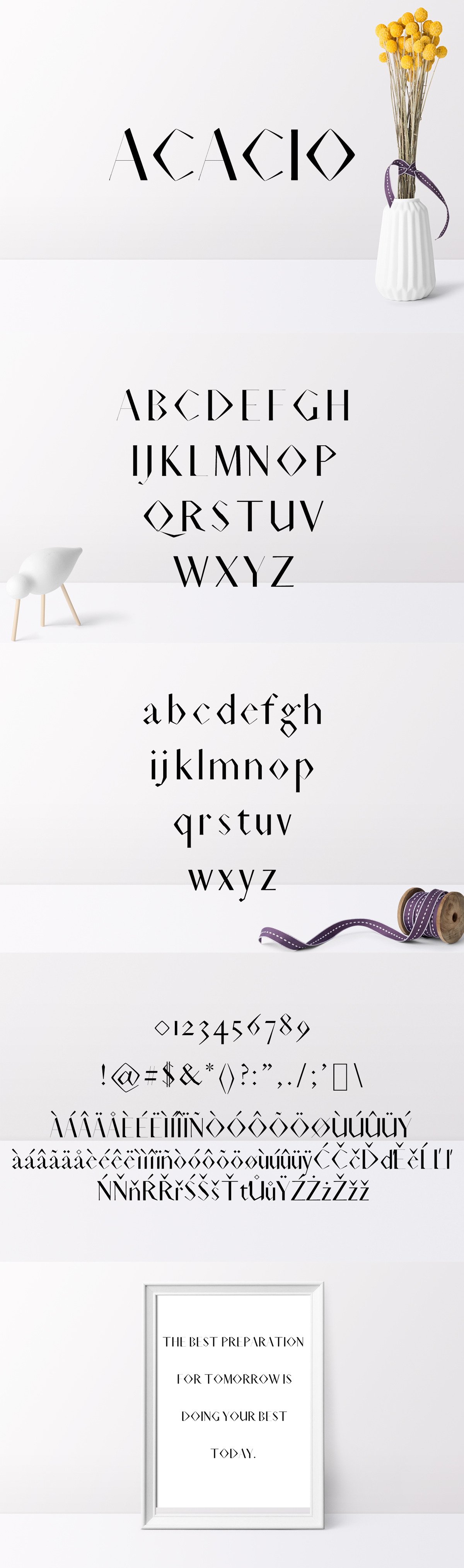
Acacio Serif 2 Font Family Pack
Acacio Serif 2 Font Family Pack features unique and modern serif look and feel. Perfect for gorgeous logos, titles, web layouts and branding. It looks gorgeous in all caps with a wide-set spacing if you want to try a classy look, or beautiful on its own in capital and lowercase letters for something completely timeless.
Acacio Font Features:
- Uppercase Multilingual Letters
- Lowercase Multilingual Letters
- Non English Characters ( Latin Supplement + Latin Extended A)